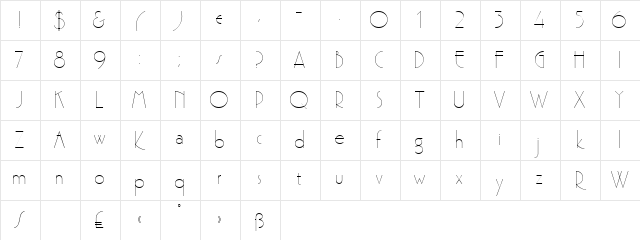
AcesPlus Regular
Design Context for AcesPlus
AcesPlus is a composed and adaptable typeface that performs quietly and consistently across a wide range of design contexts.